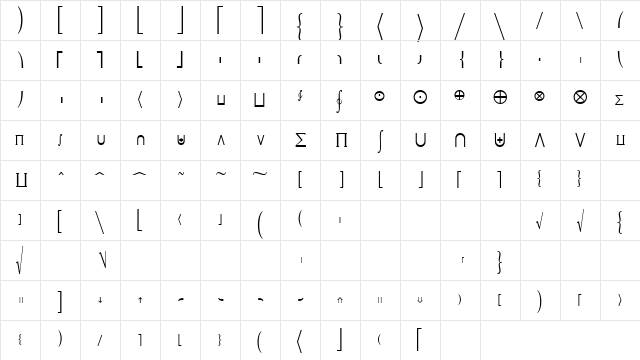
MachadoMathExtensionSSK Regular
Design Context for MachadoMathExtensionSSK Typeface
MachadoMathExtensionSSK offers clean, dependable letterforms without strong stylistic allegiance, making it a practical choice for designers who need flexibility.